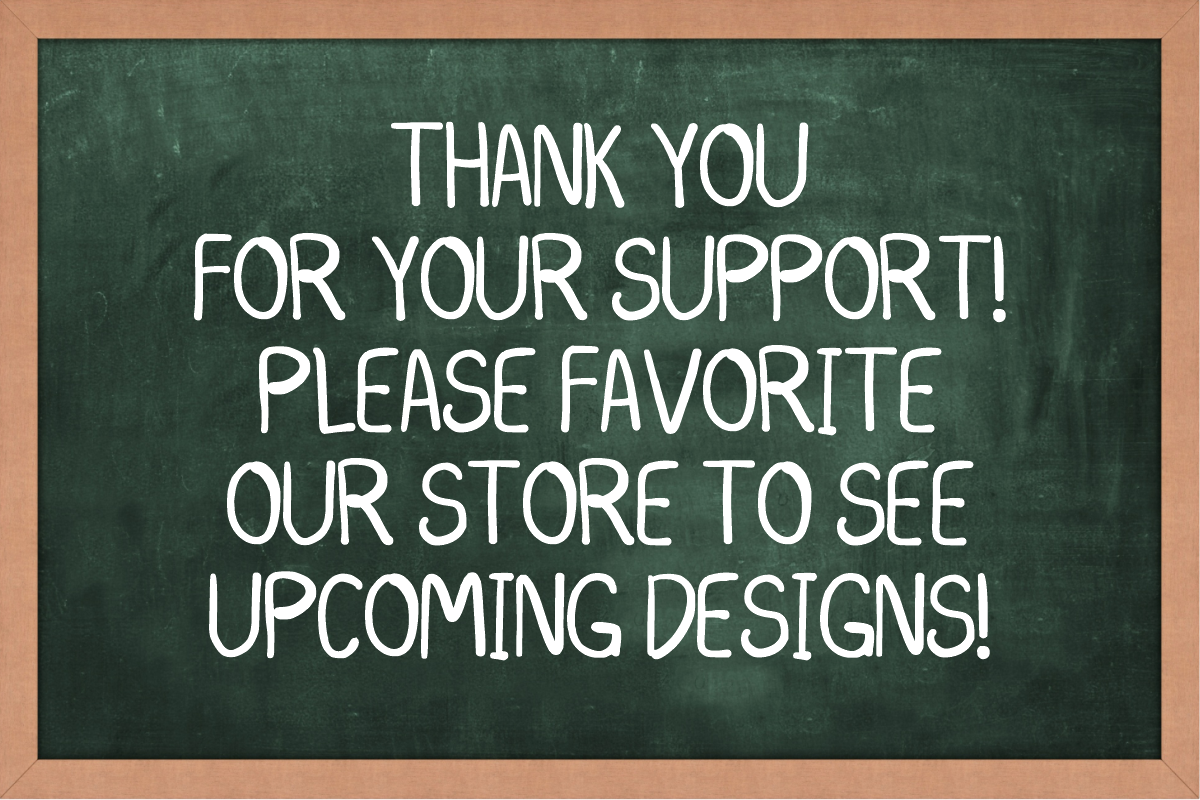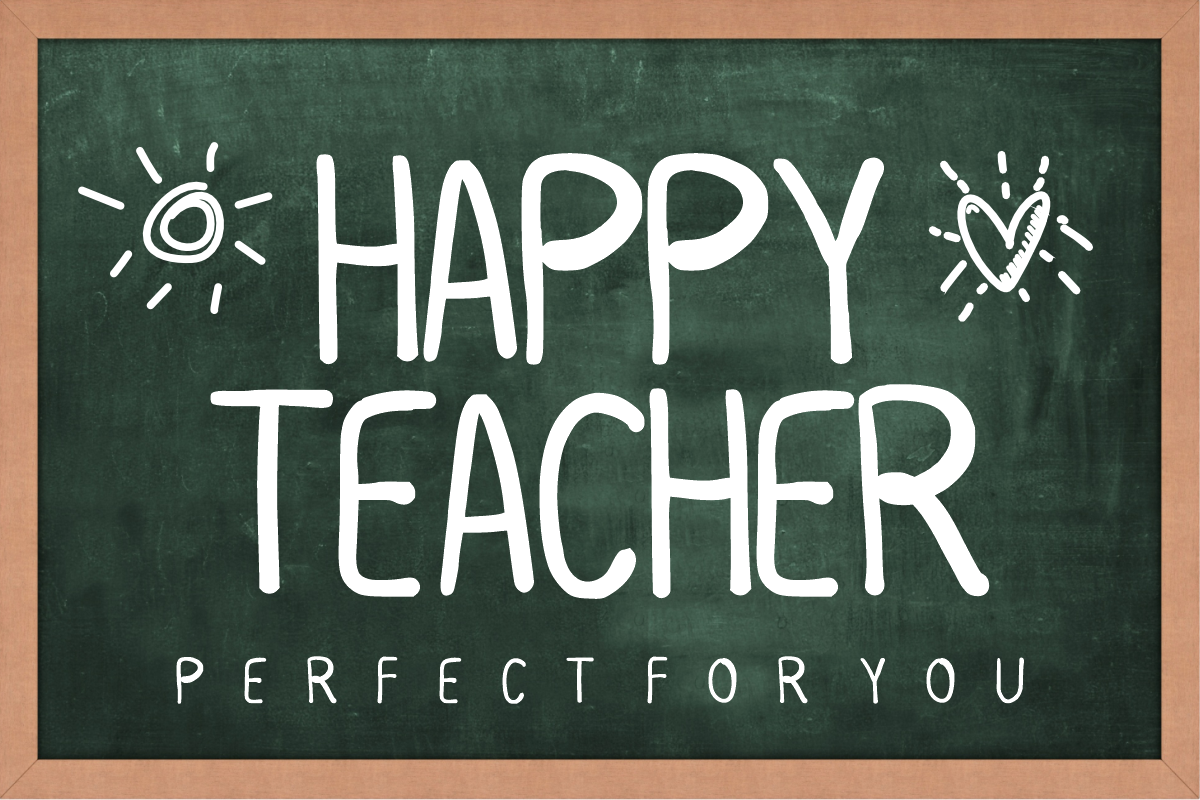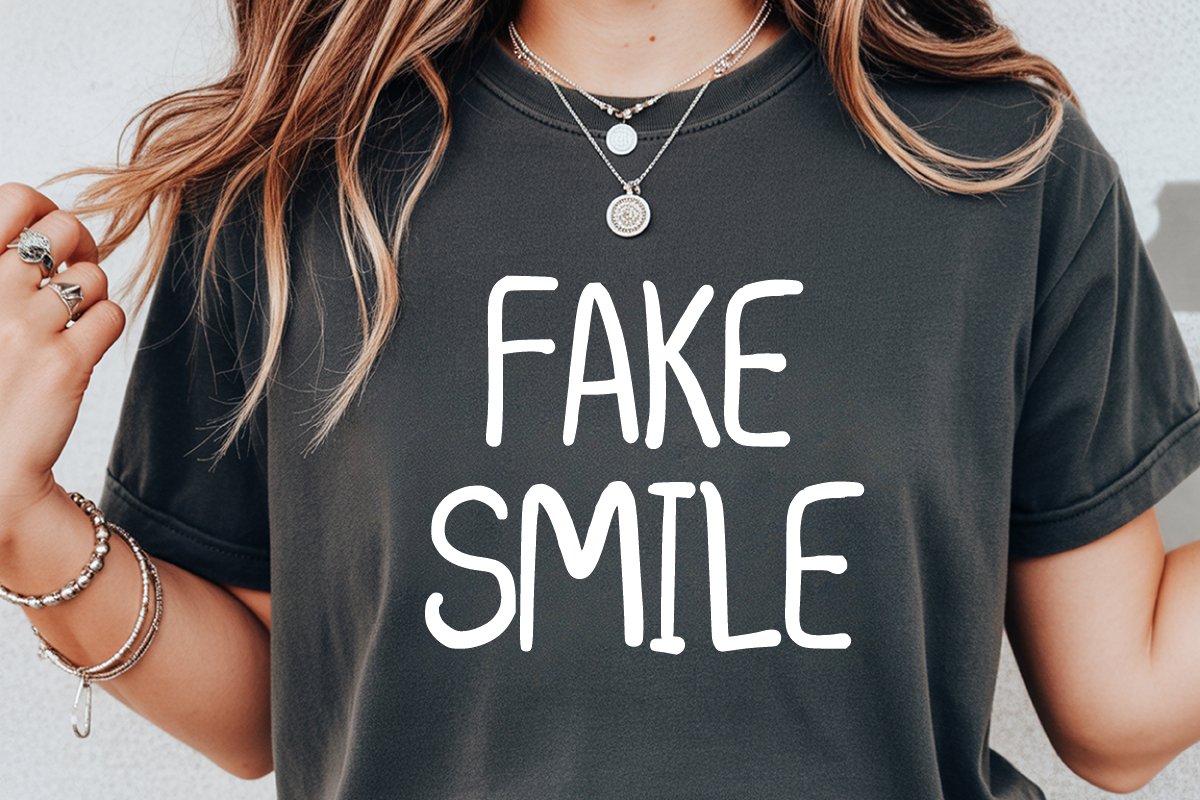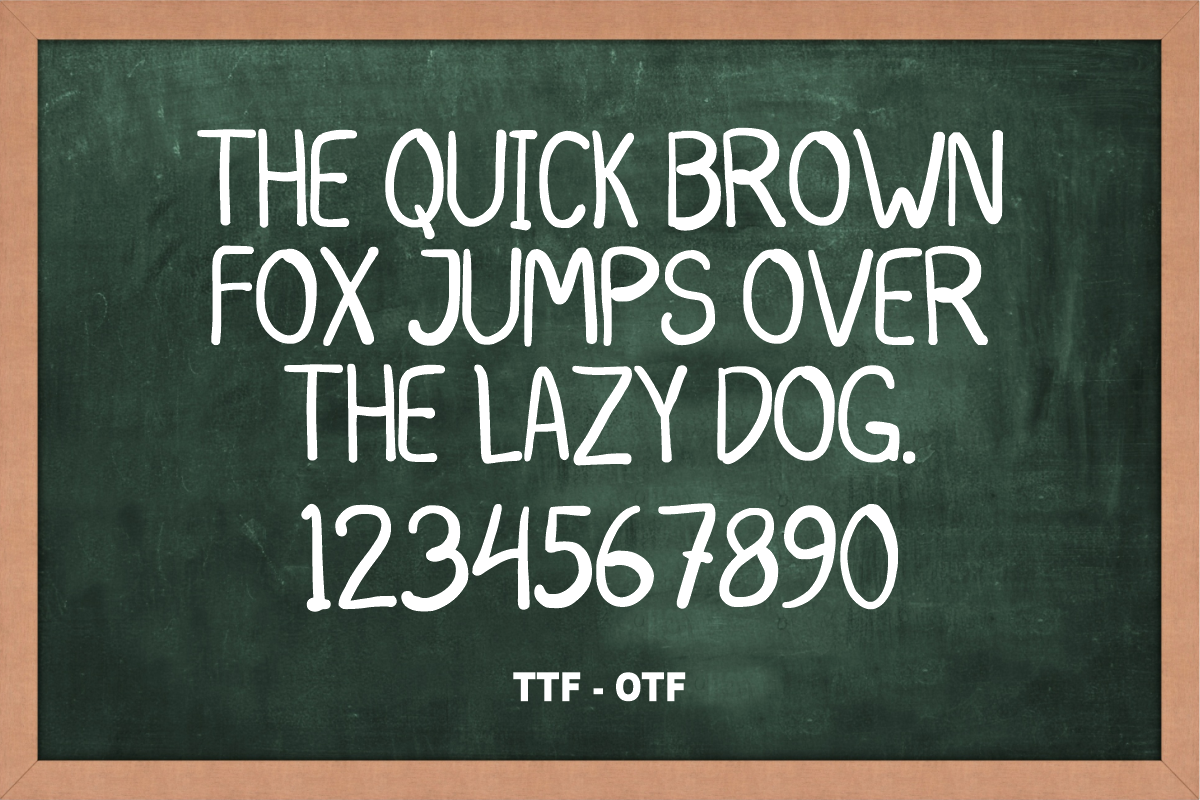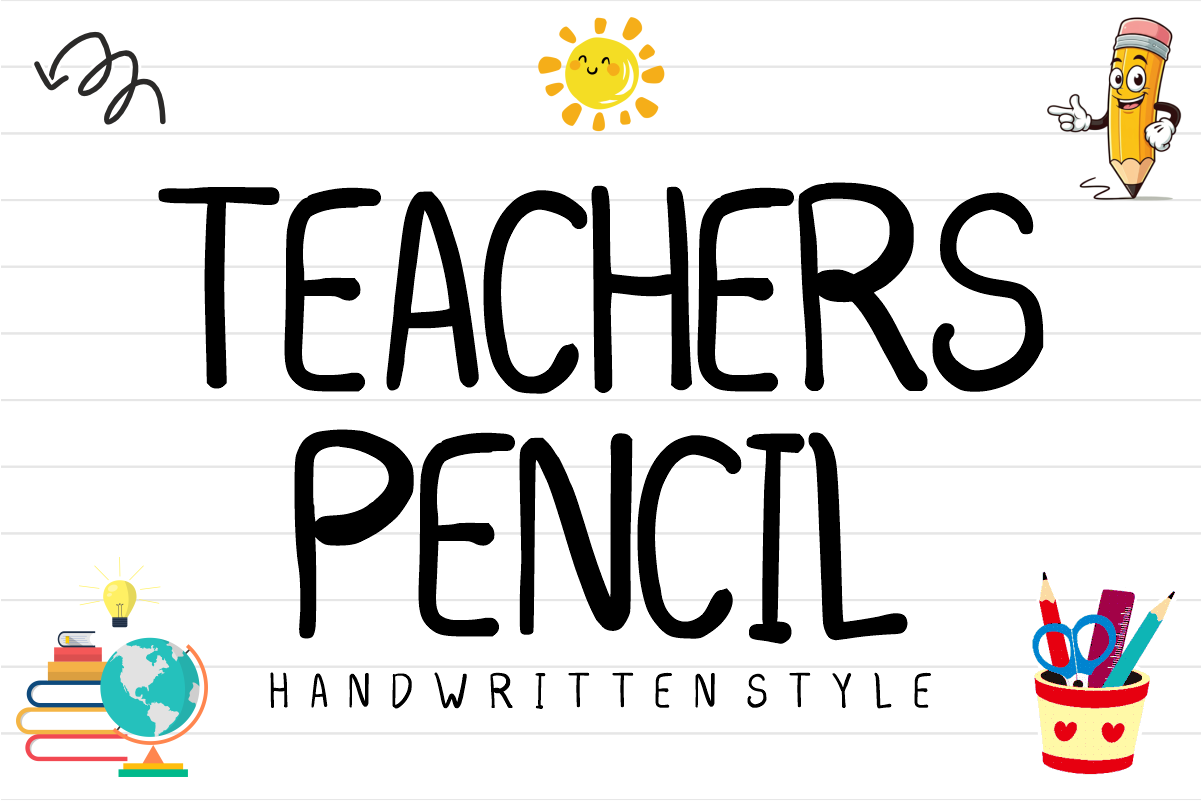
Teachers Pencil - Handwritten Font
✏️ Teachers Pencil – Neat & Authentic Handwritten Font
Capture the warmth of a hand-written note with professional clarity.
Teachers Pencil is a slender, tall, and beautifully legible handwritten font that mimics the natural flow of a pencil on paper. Unlike messy scripts, this font maintains a neat and organized look, making it perfect for educators, bloggers, and designers who want a personal touch without sacrificing readability. Its thin, clean lines provide a modern yet organic feel that stands out in a sea of bulky display fonts.
✨ Why Teachers Pencil is a Must-Have:
Ultimate Legibility: Designed with clear spacing and consistent heights to ensure your text is easy to read, even at smaller sizes.
Authentic Feel: Subtle irregularities give it that genuine "penciled" look, perfect for adding a human touch to digital designs.
Versatile Design: Its minimalist style works across various themes, from professional educational materials to sweet, rustic branding.
🎨 Perfect For:
📚 Educational Materials: Classroom worksheets, teacher planners, and school newsletters.
🖋️ Digital Planning: Use it in GoodNotes or Notability for a tidy, aesthetic journaling experience.
📱 Social Media & Blogs: Clean Instagram quotes, Pinterest pins, and lifestyle blog headers.
💌 Stationery: Minimalist greeting cards, "Thank You" notes, and personalized gift tags.
🏡 Nursery & Home Decor: Sweet wall art prints and organized pantry labels.
Character Set: Neat Uppercase Letters (A-Z).
Numbers & Symbols: Complete numerals (0-9) and essential simple punctuation.